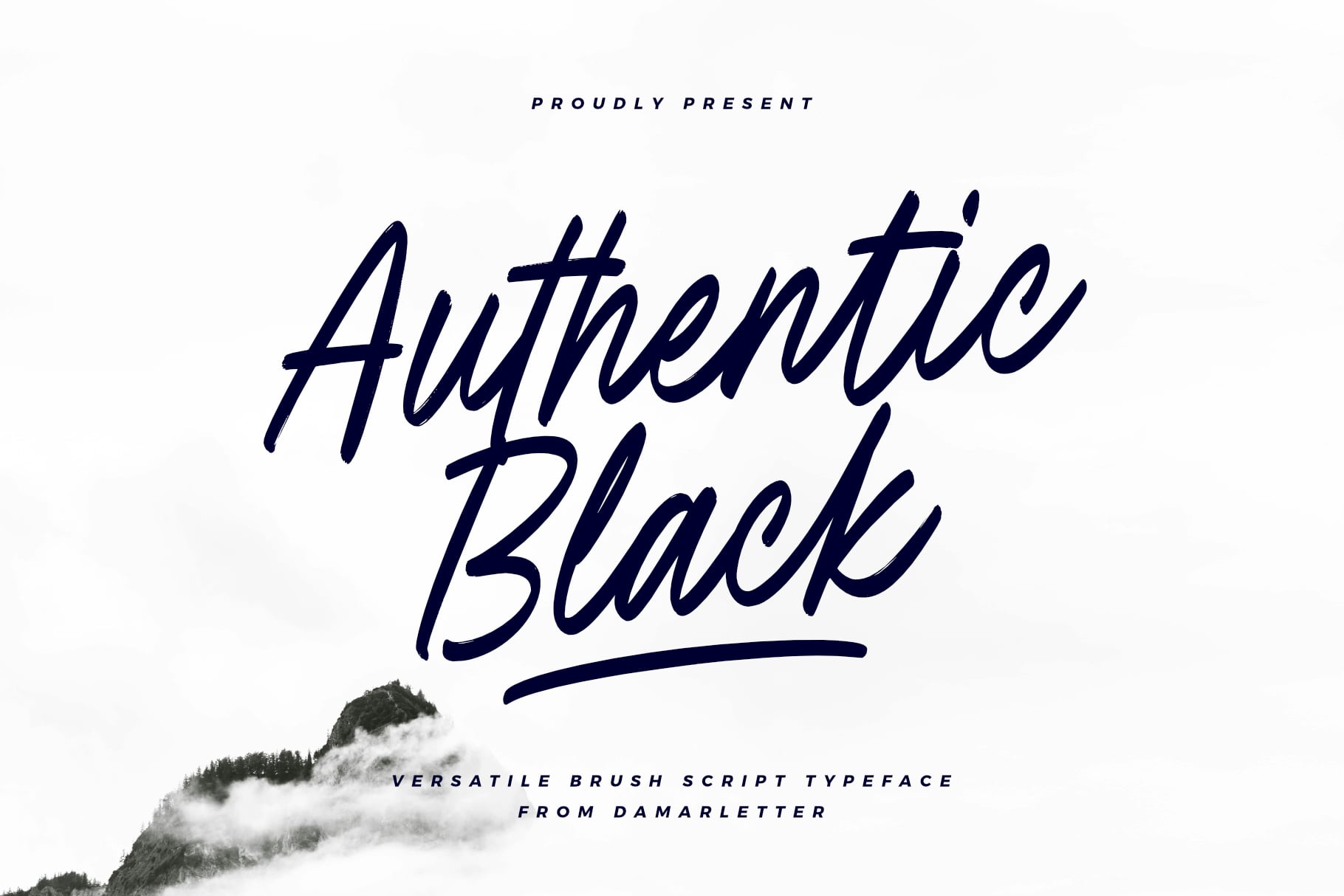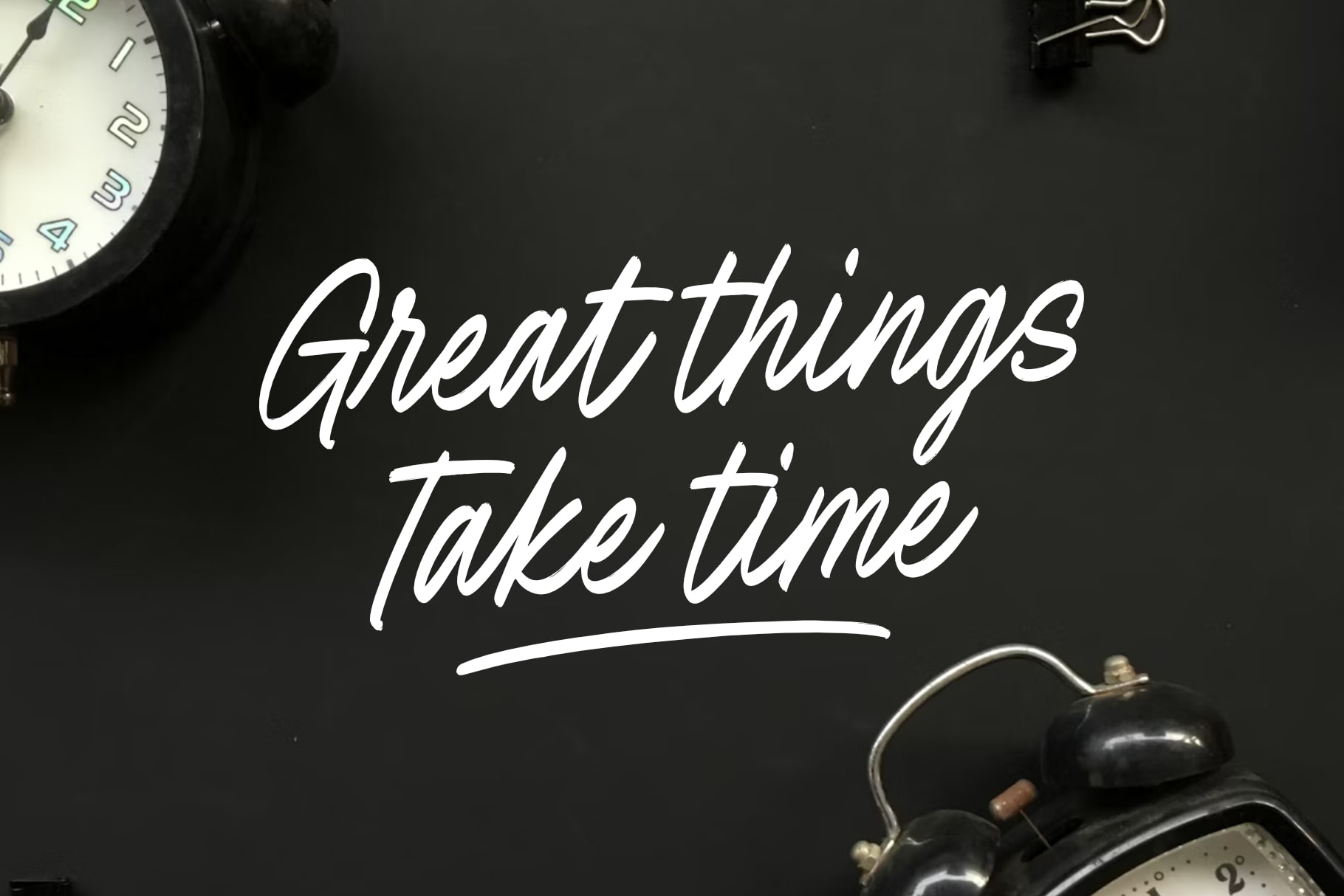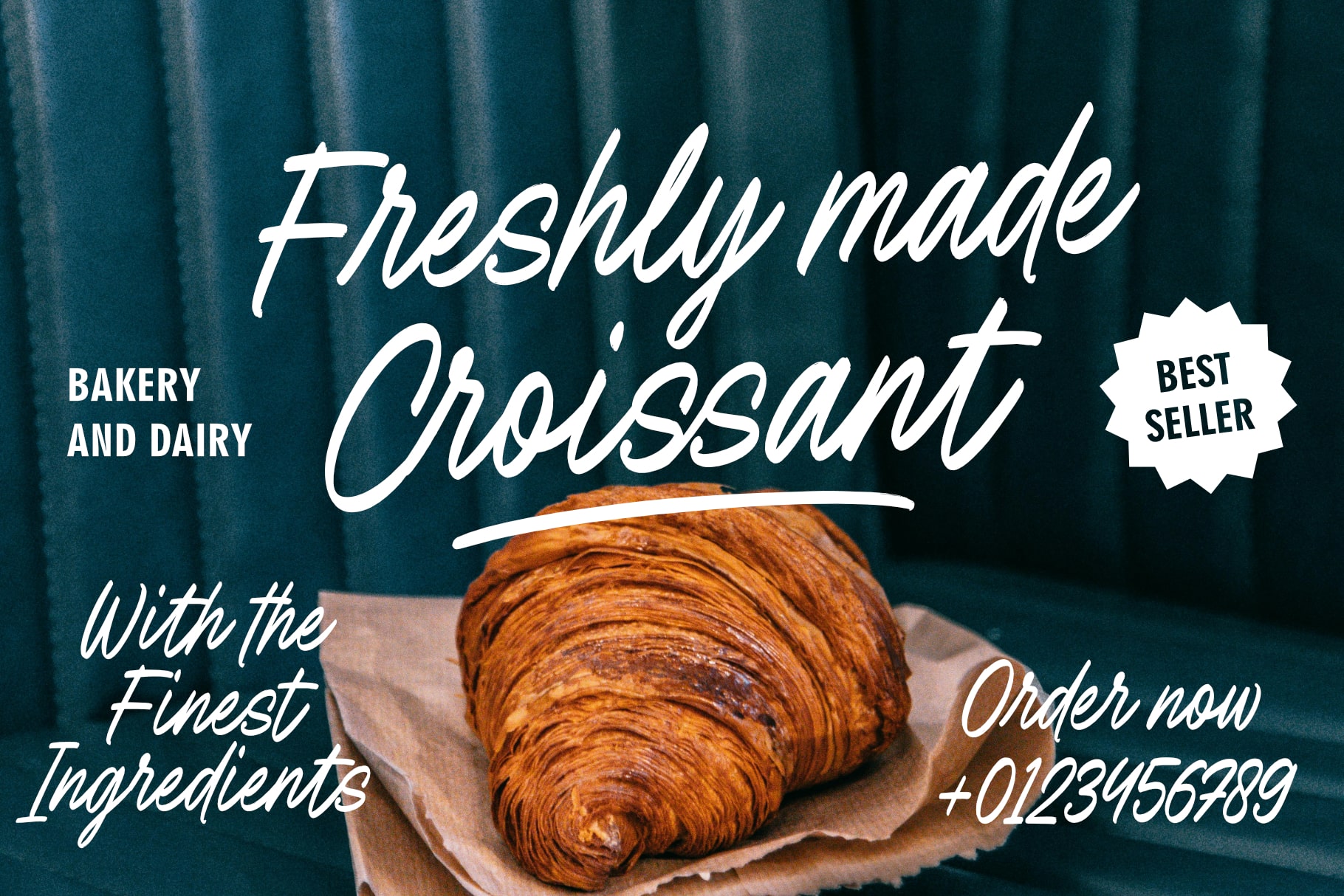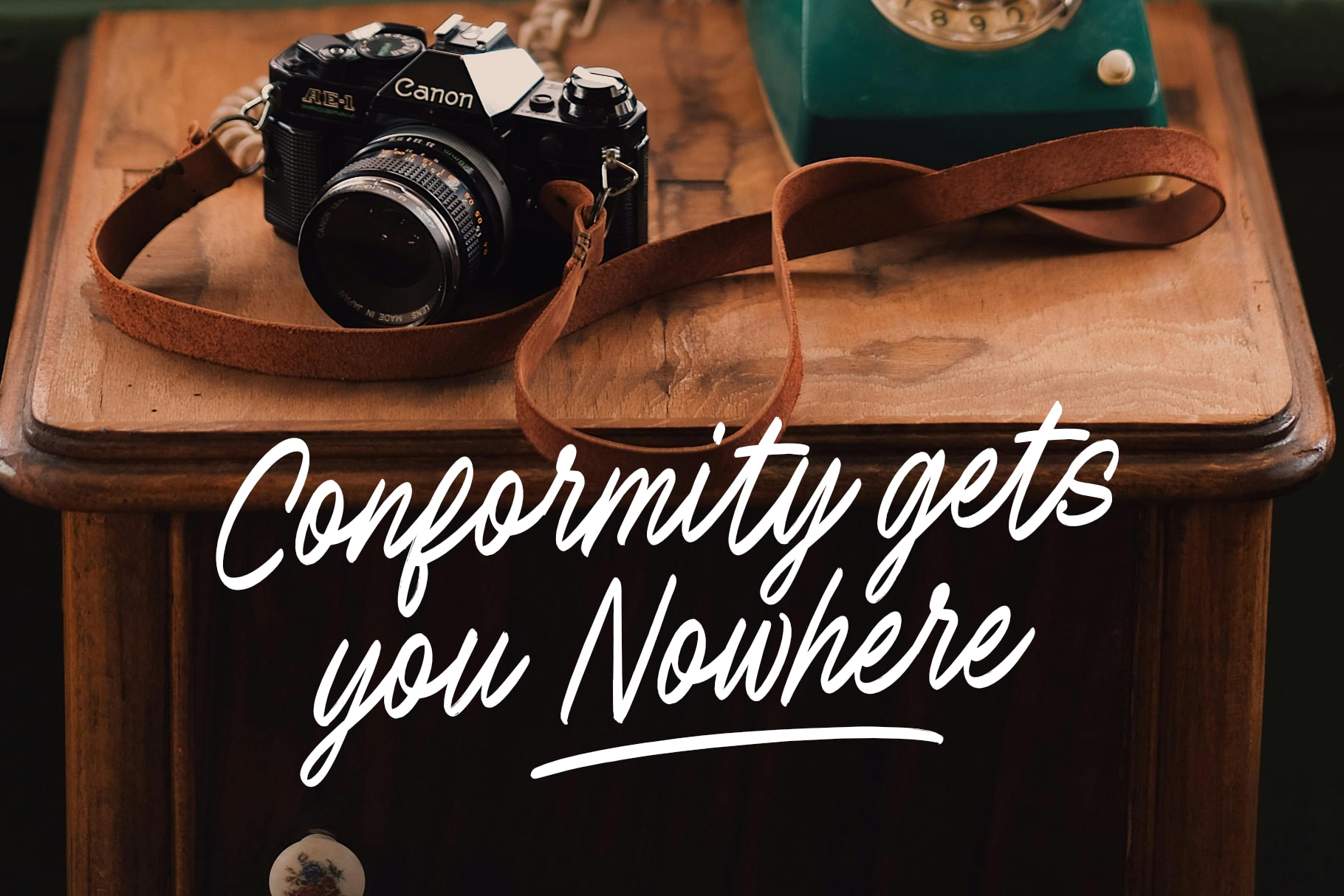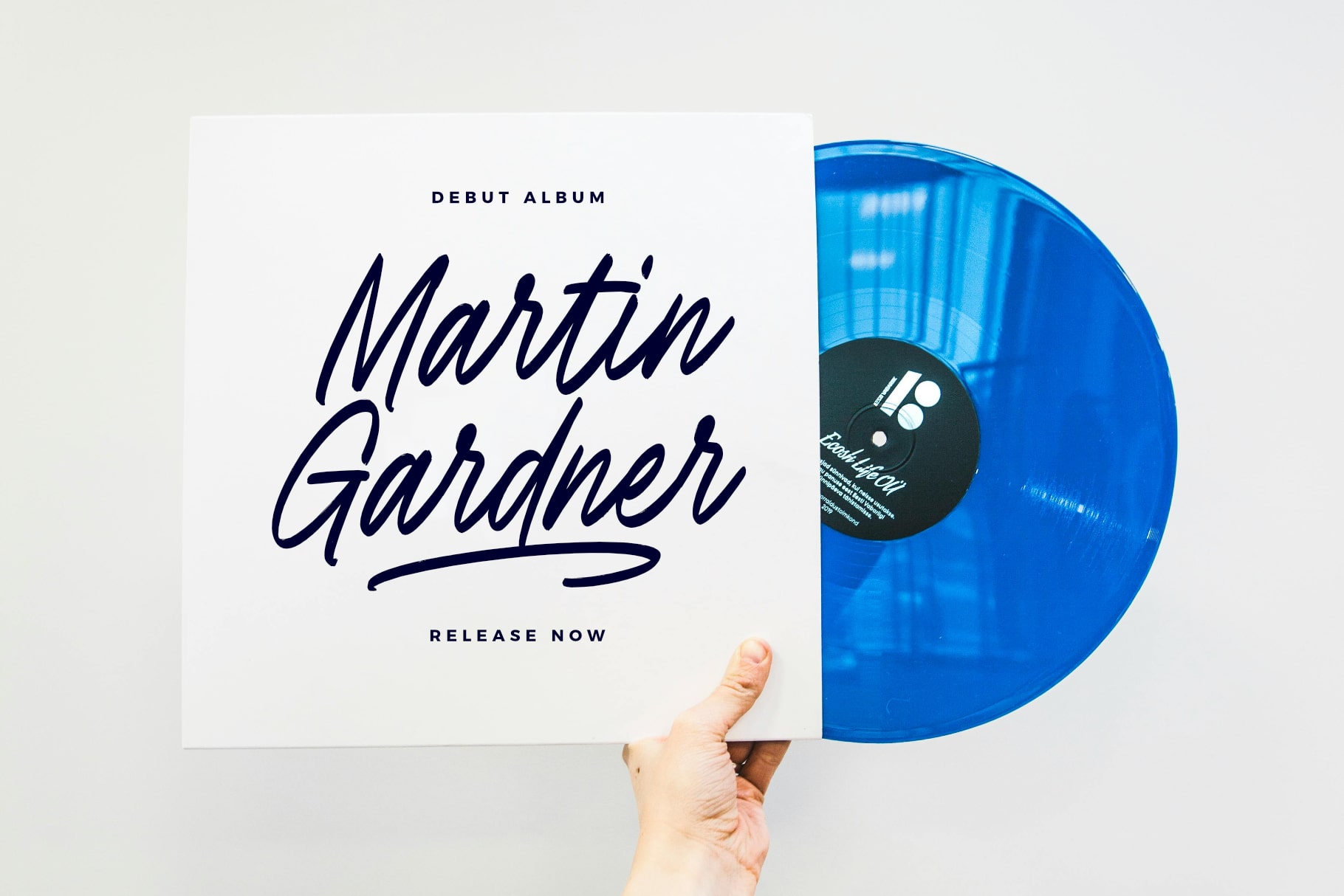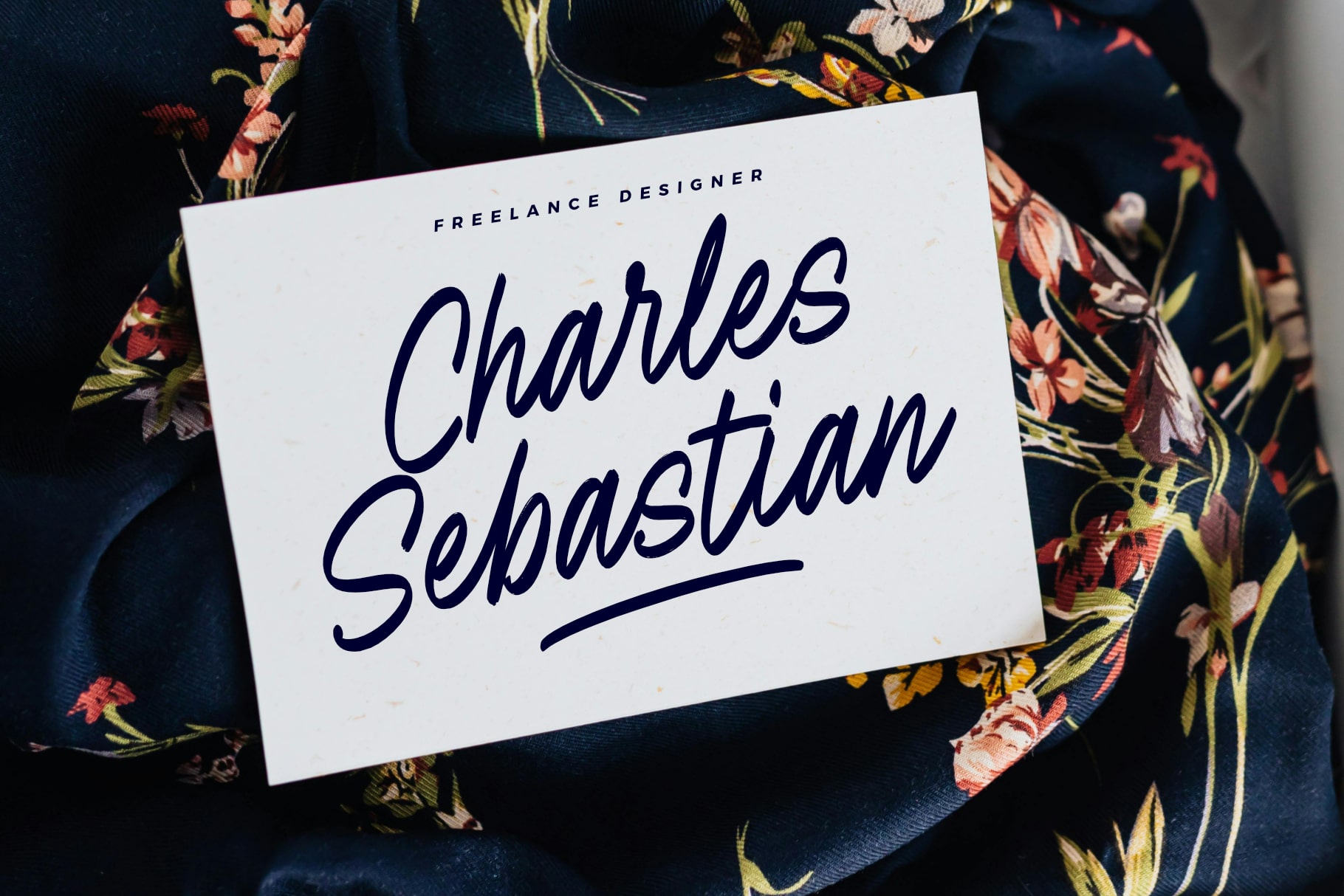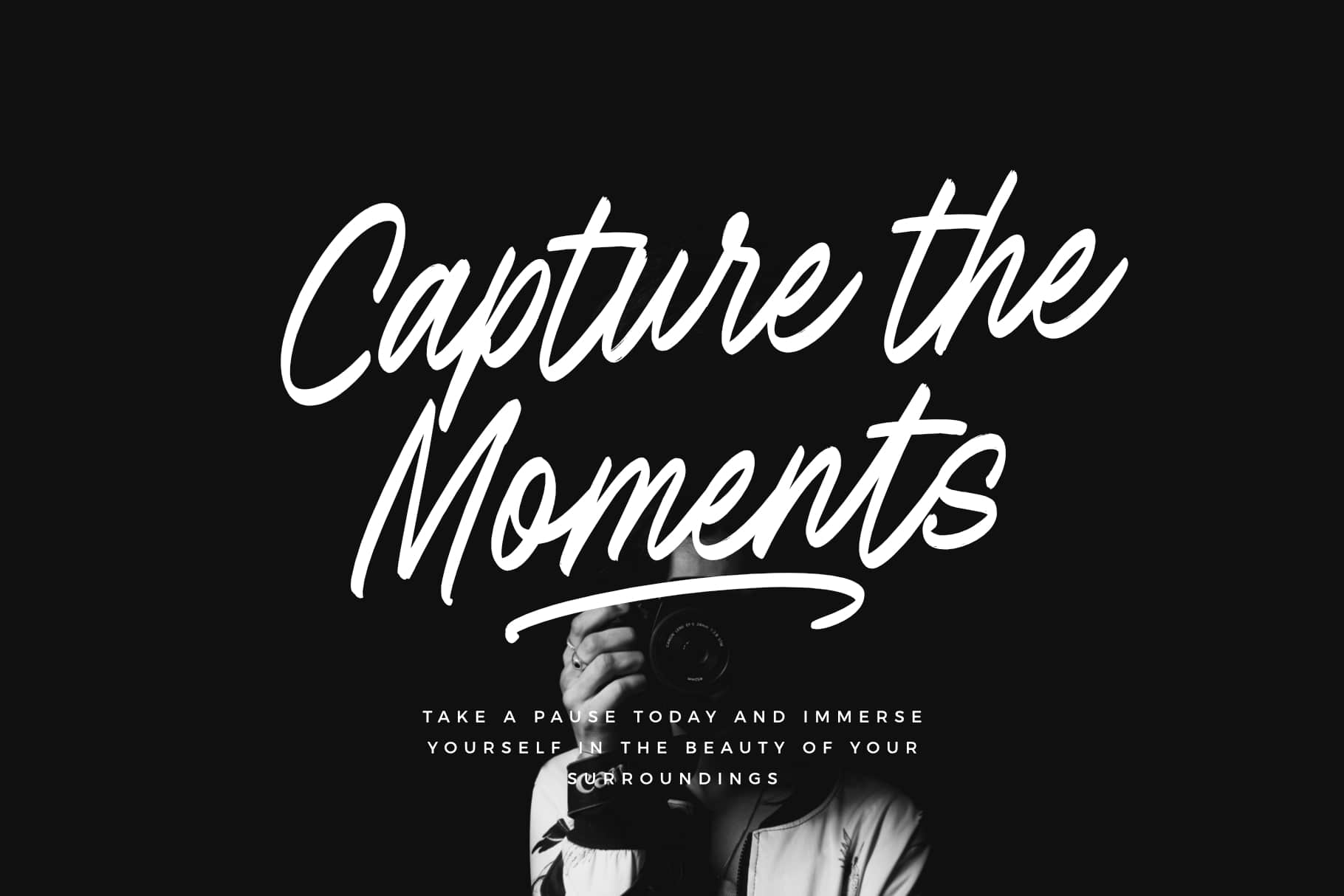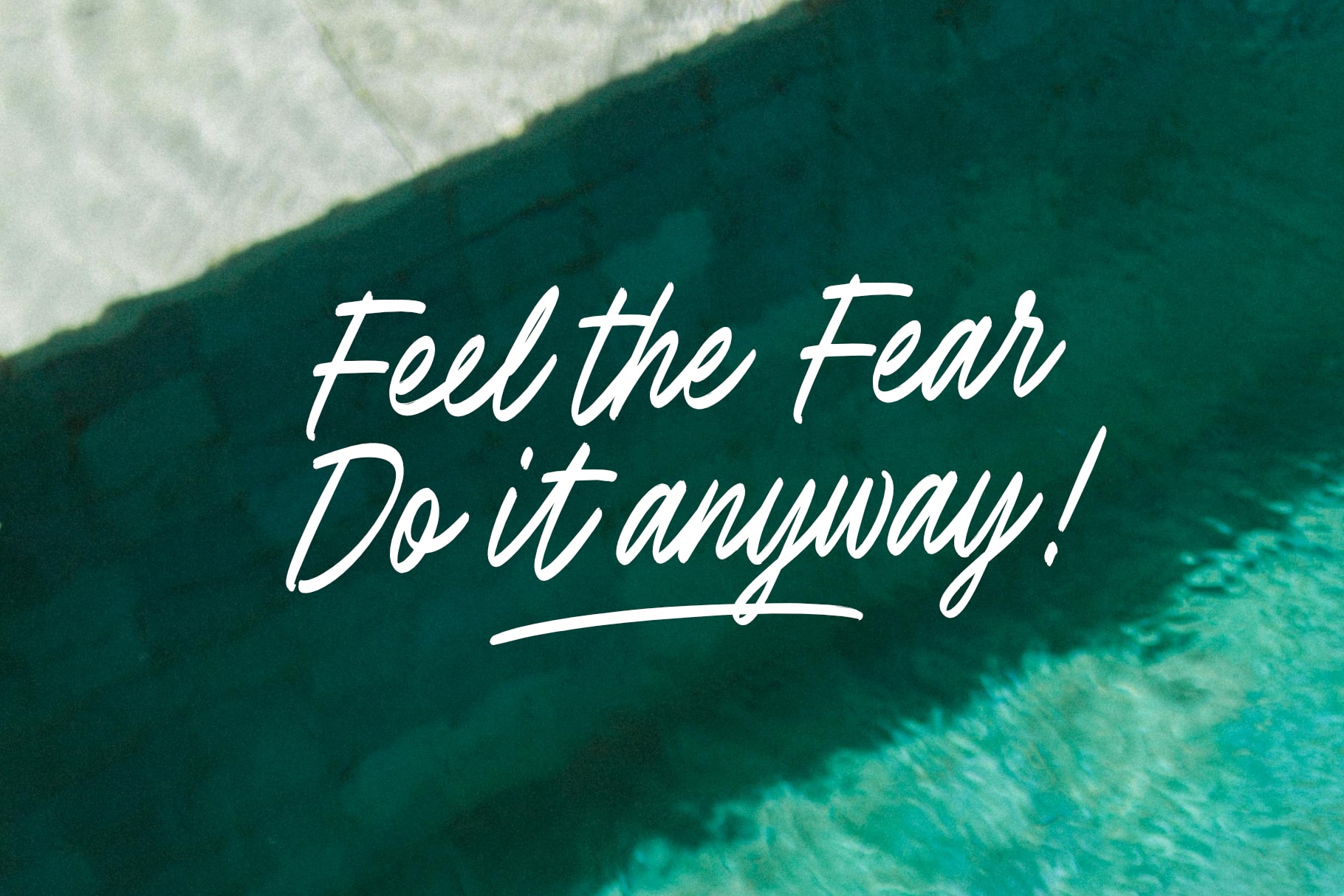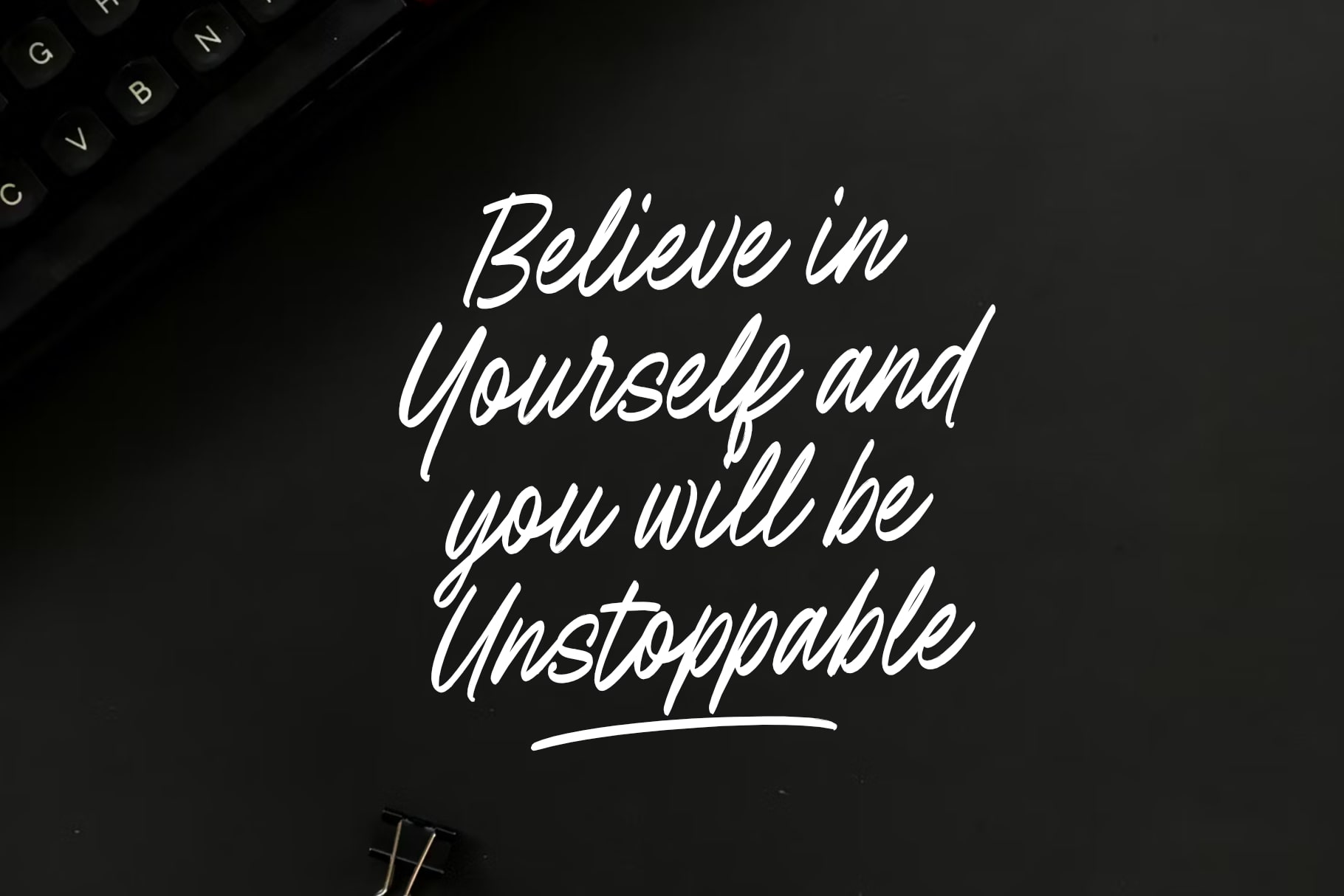
- Authentic Black brush script typeface
Authentic Black is a bold and versatile brush script typeface that brings raw energy and character to your designs. With its dynamic brushstrokes and rugged letterforms, this font captures the essence of hand-painted typography, making it ideal for projects that demand a powerful, expressive feel. Perfect for both casual and daring applications, Authentic Black adds a unique, handcrafted touch to any creative work.